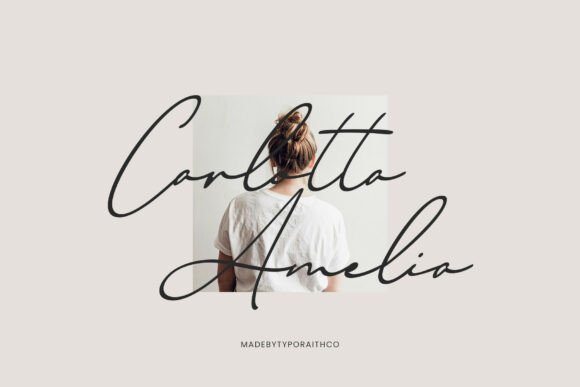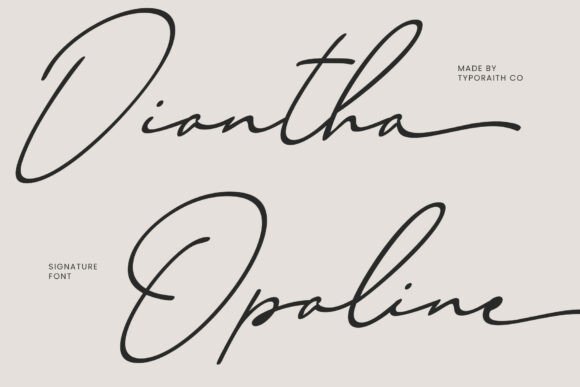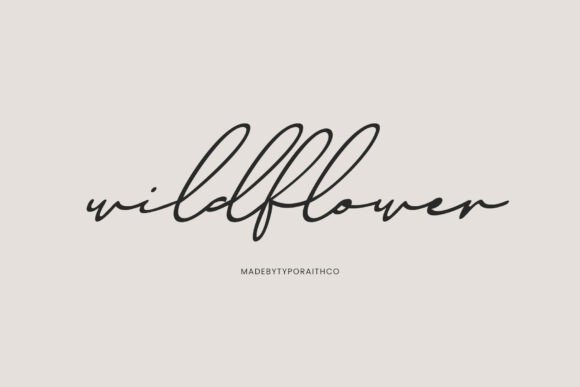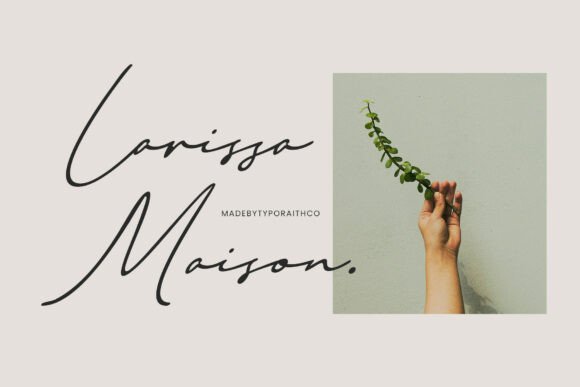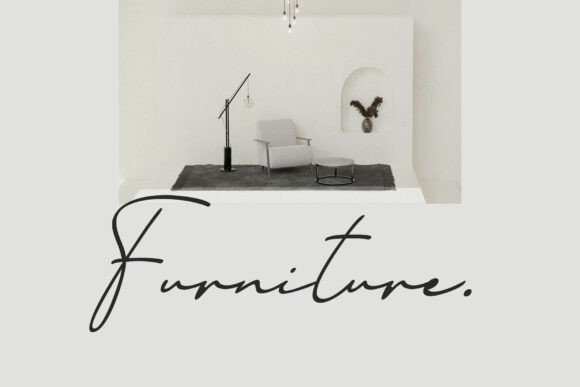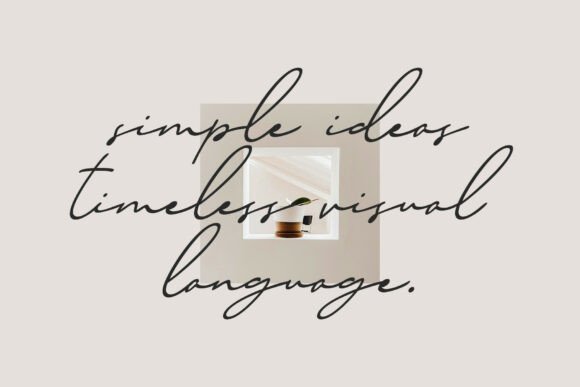
Introduction to Morgause Font
As a designer, have you ever struggled to find the perfect font for your creative project? You know, that one font that makes your design feel complete and polished, yet still conveys your unique personality? For me, that moment comes when I’m working on a new branding project, and I need a font that exudes elegance and sophistication. That’s where the Morgause Font comes in – a modern signature font that’s about to revolutionize the way you design.
Key Features of Morgause Font
- High-quality design resource with a unique, mystical aesthetic, perfect for creative projects.
- Includes a range of glyphs, including Latin characters, punctuation, and special symbols, making it a versatile design resource.
- Available in 2 font styles: regular and bold, each with a distinctive feel that adds depth to your creative project.
Honest Review: Morgause Font
As a designer, I’m always on the lookout for high-quality design resources that can elevate my creative projects. Recently, I stumbled upon the Morgause Font, and I must say, it’s a gem.
- ✨ Elegant and sophisticated design aesthetic that’s perfect for luxury branding and editorial projects
- ✨ High-resolution fonts that look great on both print and digital mediums
- ✨ Transparent background, making it easy to use on any design background
- ⚠️ Limited font styles and variations, which might not be ideal for designers who require a wide range of options
- ⚠️ Some users may find the font too ornate or elaborate, which might not be suitable for all design projects
Morgause Font
The Morgause Font is perfect for a variety of designs, including wedding invitations, branding materials, and marketing collateral. Its elegant style and transparent background make it an excellent choice for designs that require a touch of sophistication.
Comparison to Morgause Font: Great Vibes Font has a more elegant and refined feel compared to Morgause Font, which has a more playful and whimsical touch.